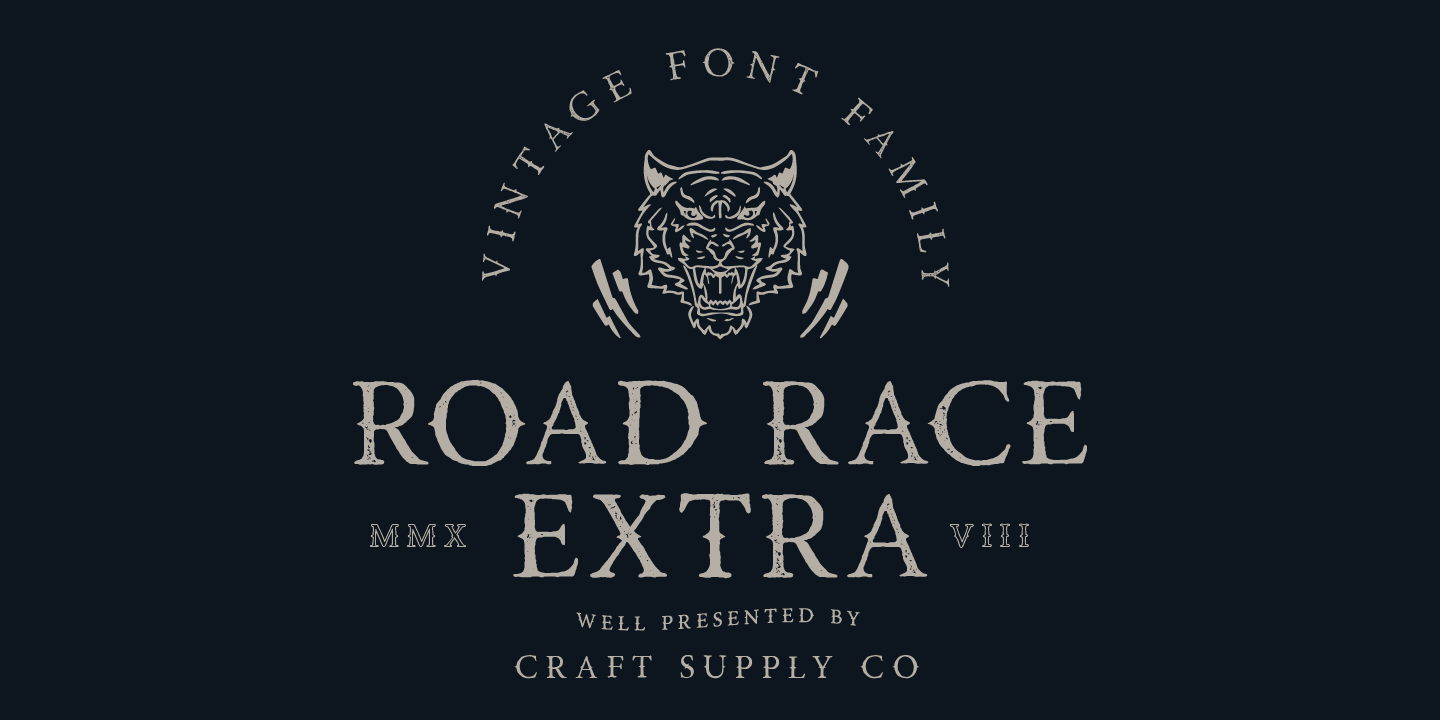
Road Race Extra Font is perfect for motorsports event branding, racing team logos, automotive performance marketing, speedway signage, car rally promotions, motorcycle racing graphics, driving experience packages, automotive magazine layouts, high-performance vehicle advertisements, and adrenaline-fueled competition materials.
Road Race Extra Font is exciting because it captures the electrifying speed and competitive intensity of professional racing through its dynamic, velocity-inspired letterforms that embody the rush of acceleration and the thrill of victory while delivering messages with championship-winning power and racing authenticity.
Road Race Extra Font family includes Regular, Bold, Light, Turbo, Italic, Condensed, Velocity, and Nitro variations, offering designers a complete high-octane toolkit to create pulse-pounding visual communications that fuel excitement and celebrate the ultimate pursuit of speed and racing excellence.
Road Race Extra Font embodies the pure adrenaline and competitive spirit of professional motorsports, making it an essential choice for racing organizations, automotive brands, and performance enthusiasts who live for the thrill of speed and competition. This high-performance typeface brings championship energy to any design project, whether you're developing racing team identities, creating automotive event materials, or designing marketing campaigns for performance vehicles. The aerodynamically-inspired character design of Road Race Extra Font Free Download ensures maximum visual velocity while maintaining excellent readability across both fast-moving digital applications and high-impact racing environment signage that must perform under extreme conditions.
Motorsports industry professionals consistently choose Road Race Extra Font for racing circuits, automotive manufacturers, and performance tuning companies because of its ability to instantly communicate speed, precision, and connection to racing heritage. The font's aggressive appearance makes it particularly effective for targeting racing enthusiasts and creating brand experiences that emphasize performance excellence and competitive achievement.
Road Race Extra Font excels in automotive and entertainment environments where excitement and performance are paramount. Car manufacturers, racing video games, and automotive shows rely on this font to create materials that capture the intense emotions and competitive spirit that drive racing culture and automotive passion.
The sports and entertainment sectors have embraced Road Race Extra Font for extreme sports events, action movie promotions, and high-energy brand campaigns. Its dynamic visual character helps organizations create communications that inspire audiences to embrace speed, competition, and the relentless pursuit of victory, appealing to individuals who seek the ultimate rush through automotive excellence and racing achievement.